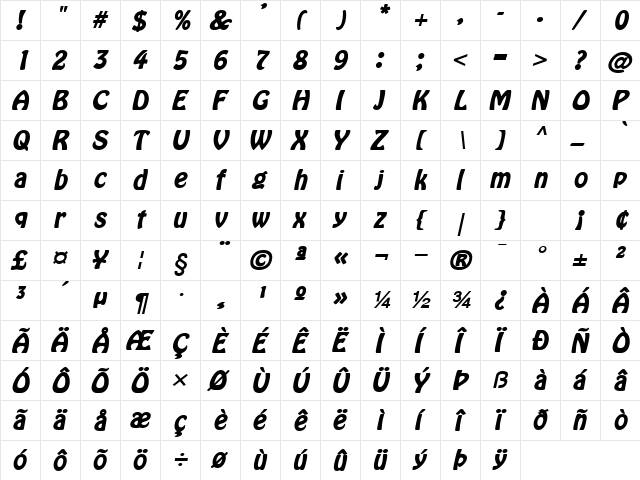
Bobo BoldItalic
Design Context for Bobo Typeface
Bobo takes a measured approach to typography — its balanced proportions and neutral character make it a reliable workhorse for both digital and print work. Its italic angle brings a sense of urgency and motion to the letterforms. The heavy weight commands attention and anchors typographic hierarchies.
Pro Tip: Use Bobo for emphasis, pull quotes, and subheadings where its slanted energy can add rhythm to the layout.